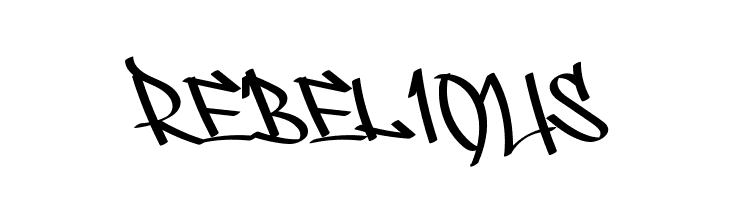
( Fonts by Tokopress )
A bold, graffiti-inspired font with sharp, angular strokes and a rebellious spirit.
( Fonts by Bisho )
A bold, graffiti-inspired font with a dynamic, urban aesthetic.
( Fonts by Asep Rendi )
A bold, graffiti-inspired font with sharp angles and high contrast.
( Fonts by Cikareotype Studio )
A bold, graffiti-inspired font with dynamic, playful curves.
( Fonts by Govany Ernesto Neuta Rodríguez )
A playful, bold font with rounded, whimsical characters.
( Fonts by Din Studio )
A bold, graffiti-inspired font with a dripping effect, perfect for urban-themed projects.
( Fonts by Mr.Soon Design )
A bold, brush script font with dynamic and expressive strokes.
( Fonts by Allan Diego )
A condensed, geometric font with sharp angles and uniform stroke width.
( Fonts by Tokopress )
A bold, graffiti-inspired font with sharp, angular edges and dynamic style.
( Fonts by chalogallardo )
A playful, bold, and hand-drawn font with exaggerated, rounded forms.